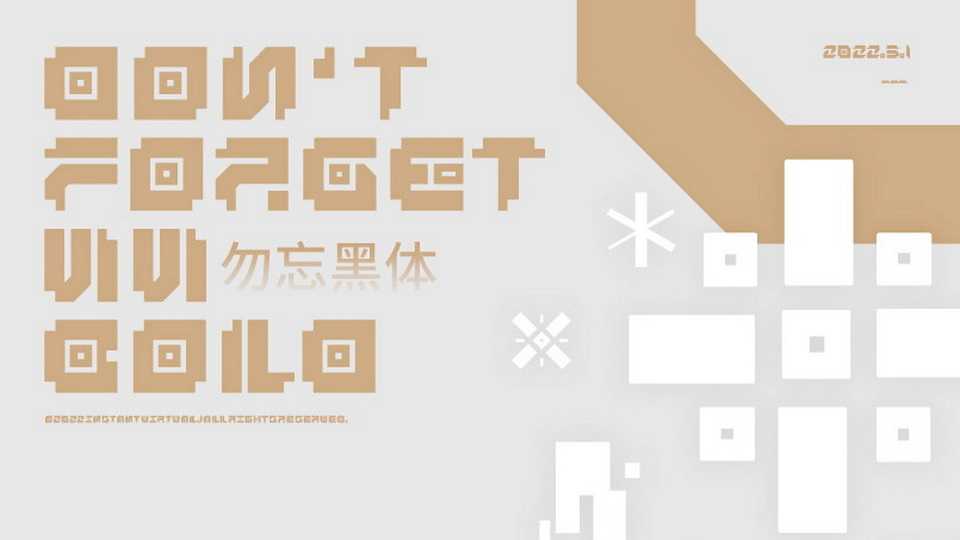
Don’t Forget Font › Fontesk – Fonte Grátis
Download Don’t Forget font, an experimental display typeface with a retro and futuristic sense that combines ancient civilization sites, murals, and text art.
Designer: DJSHANG DESIGN